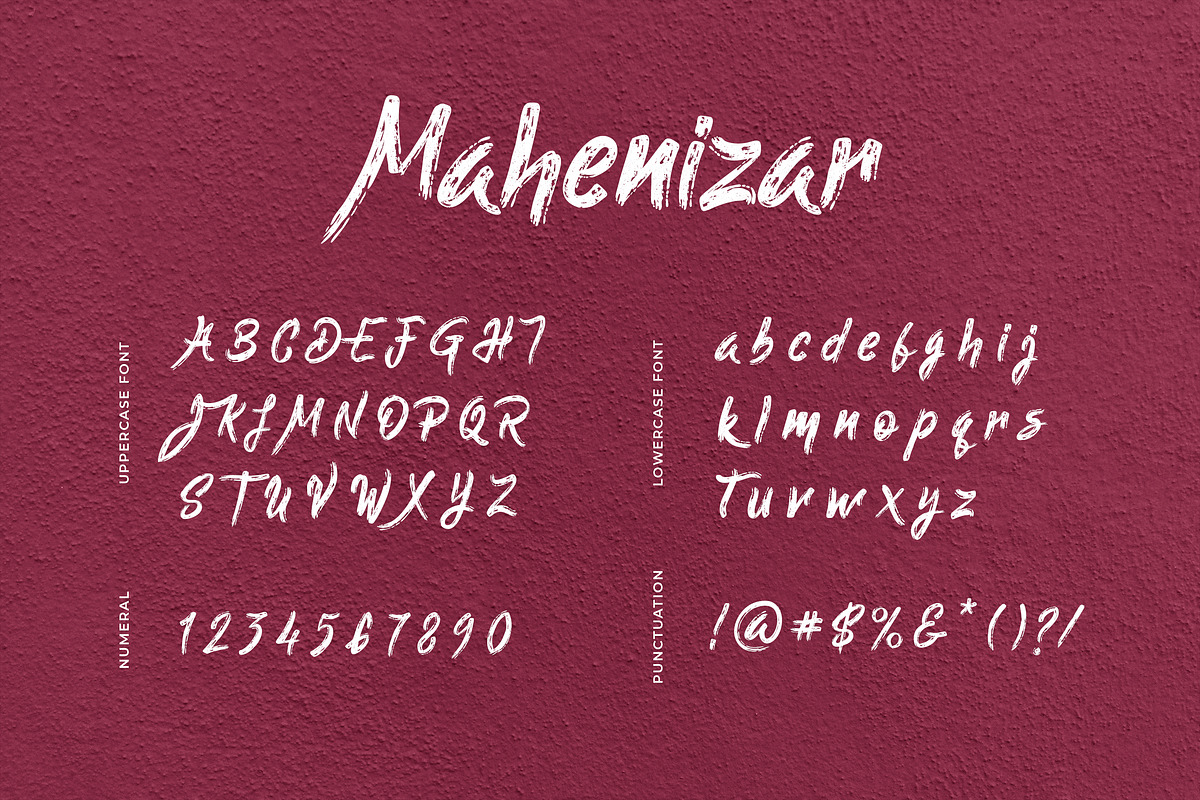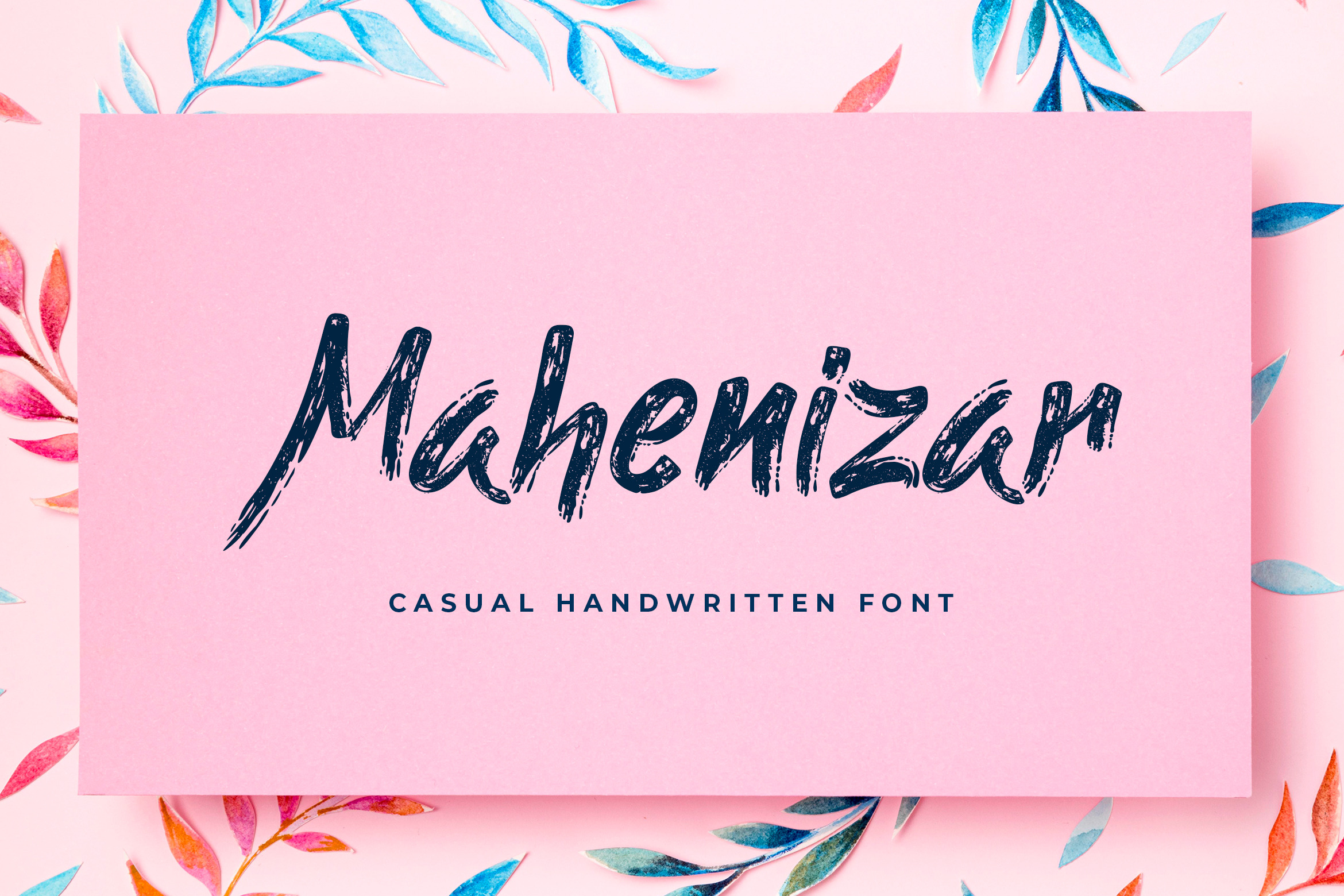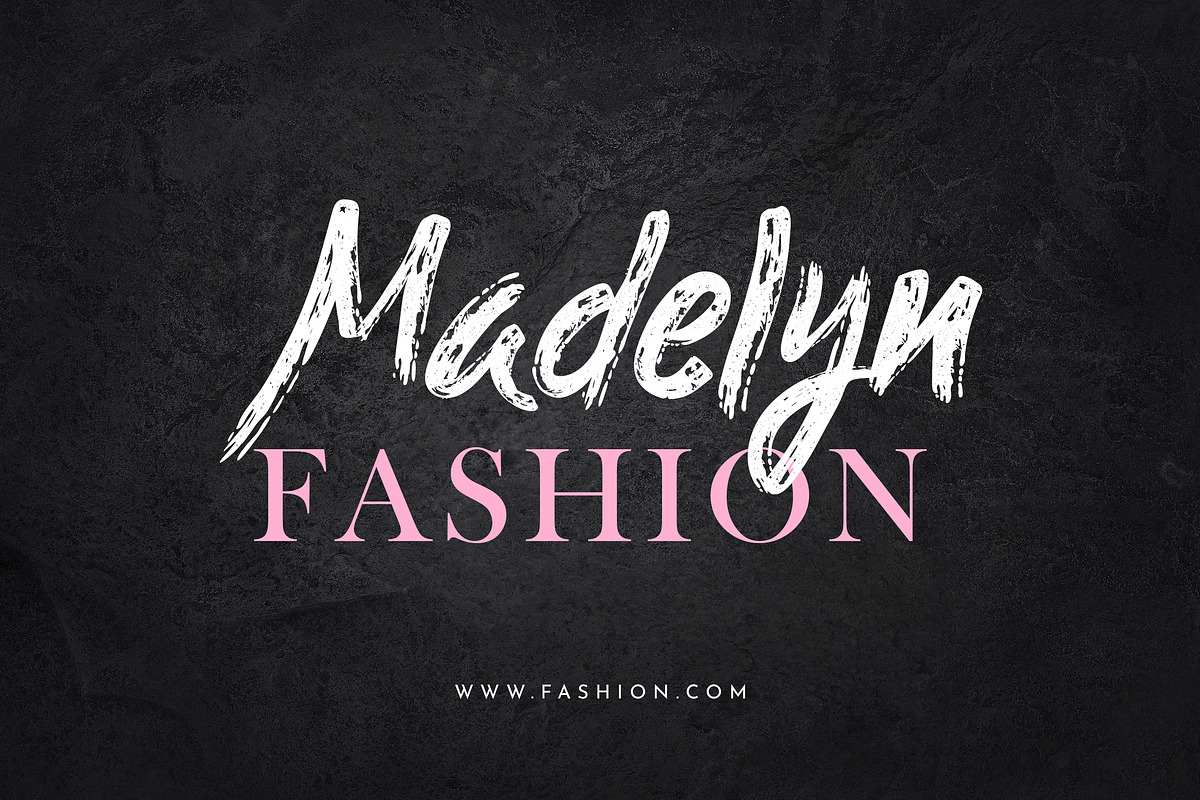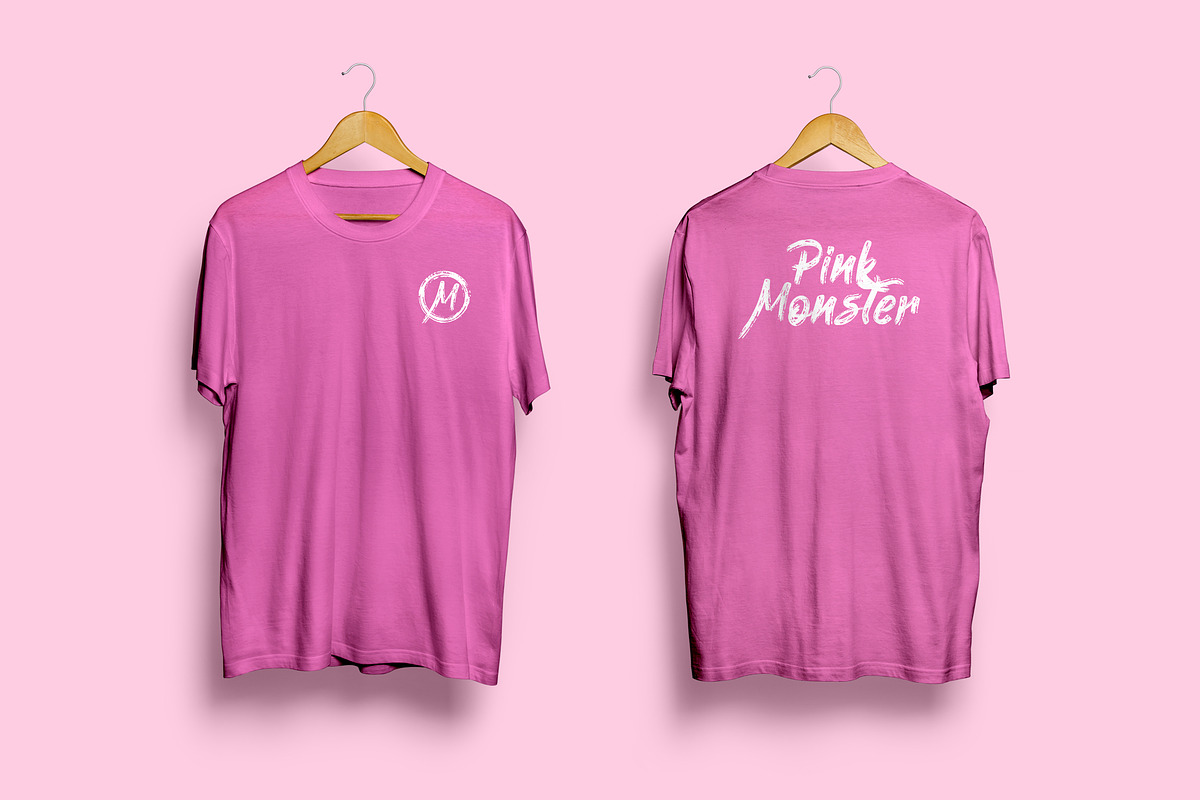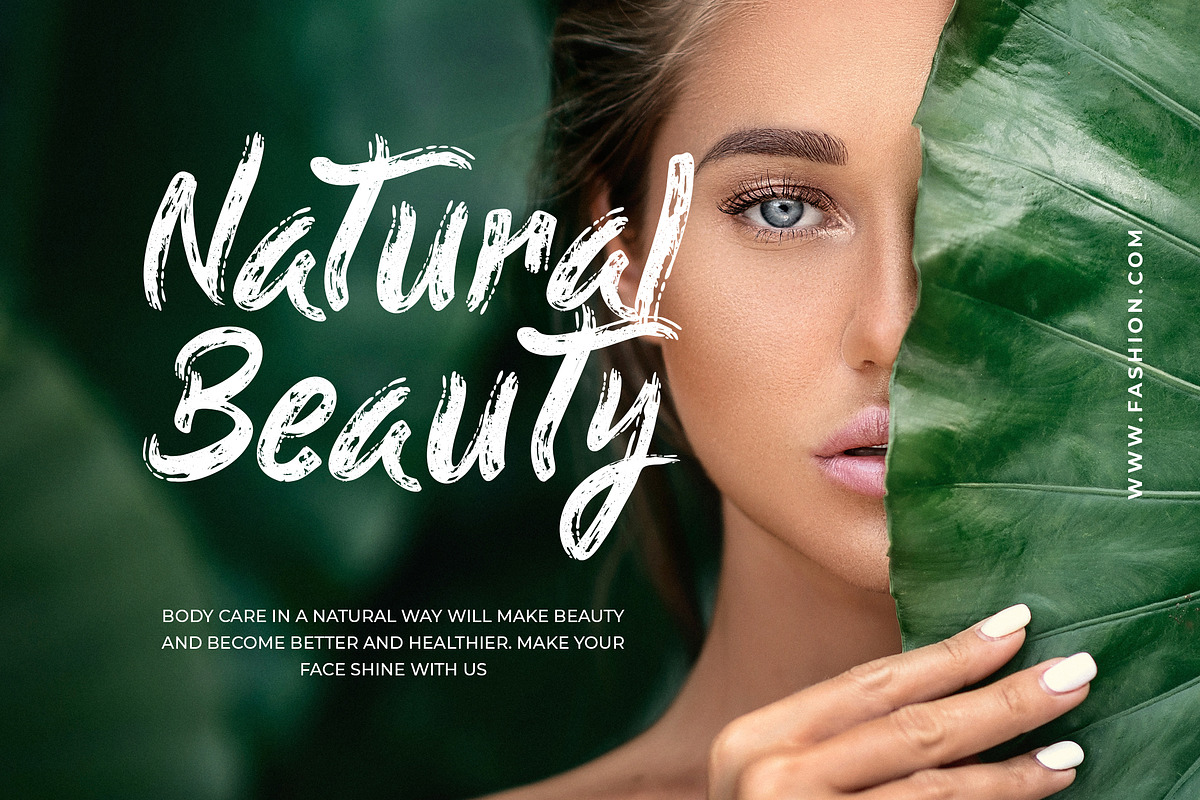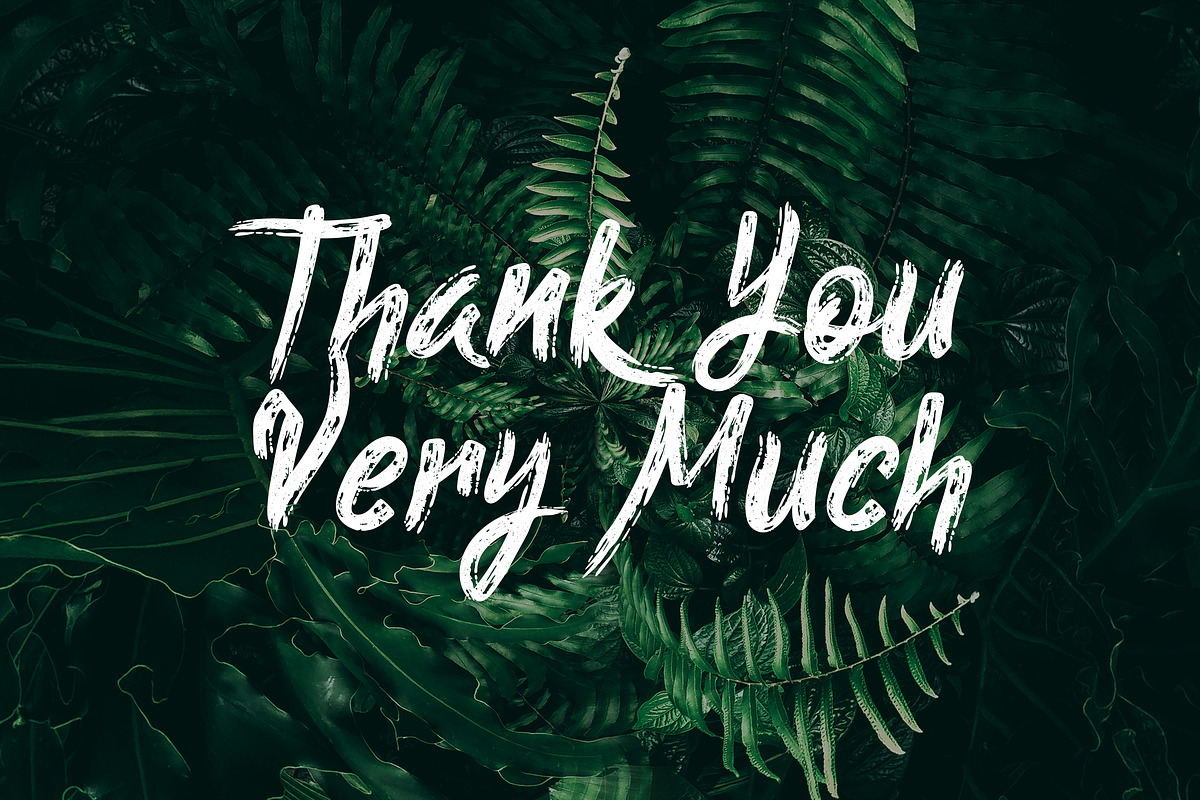
Mahenizar Brush Handwritten Font
Introducing of our new product the name is Mahenizar Brush Handwritten Font. Modern signature font that feels beautiful classy, elegant, and modern .This font is perfect suited for a wide variety of projects, as to signature, stationery, logo, wedding, typography quotes, magazine or book cover, website header, clothing, branding, packaging design and more. Also for fashion related branding or editorial design and displays both masculine and feminine qualities.